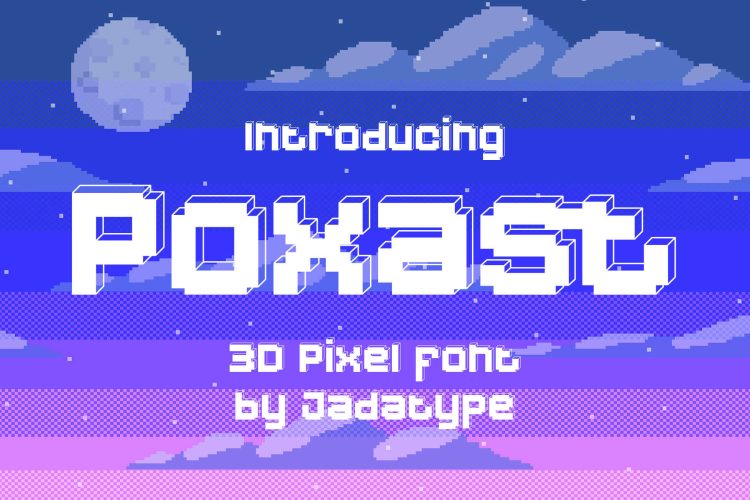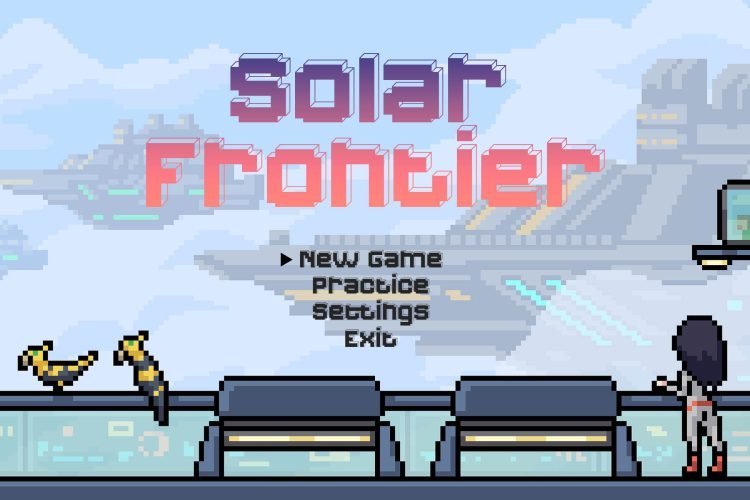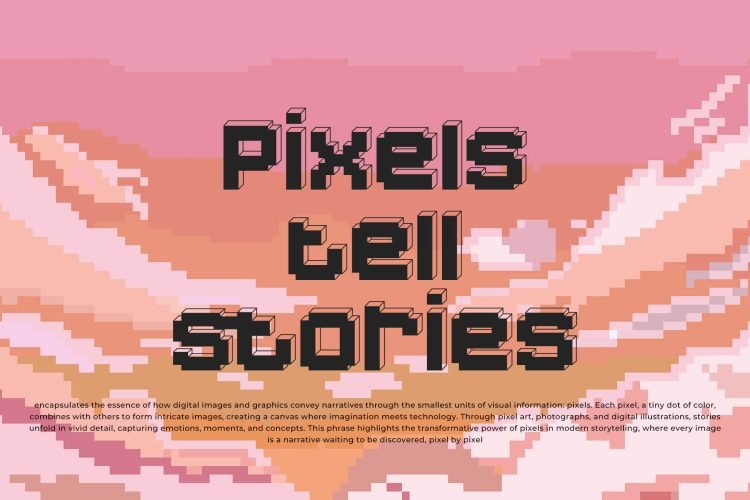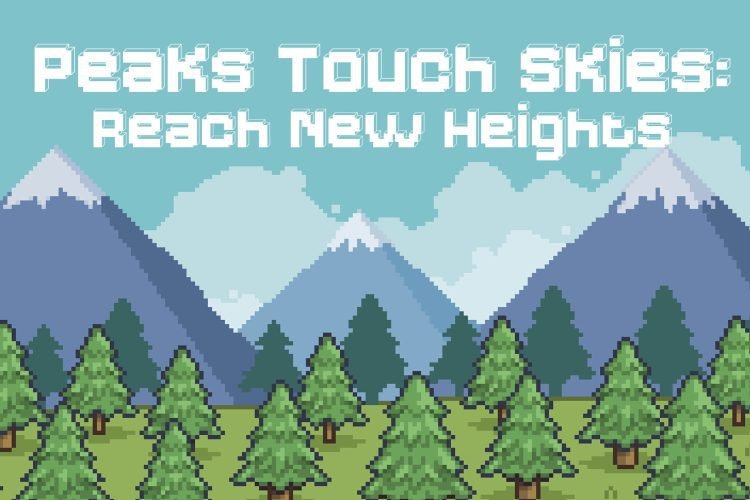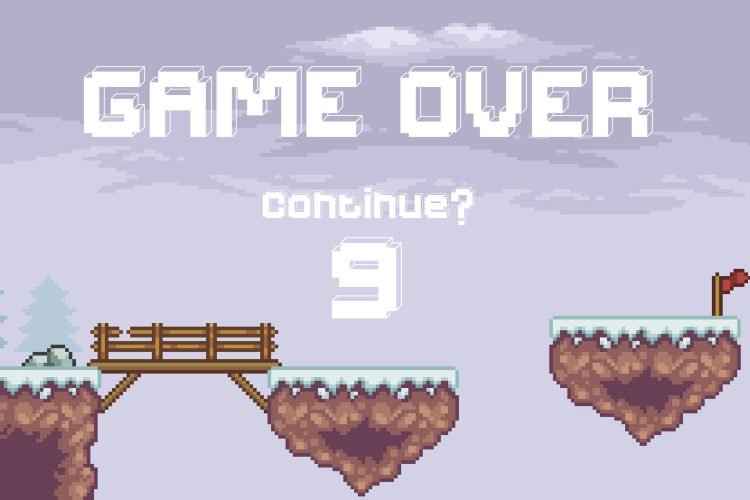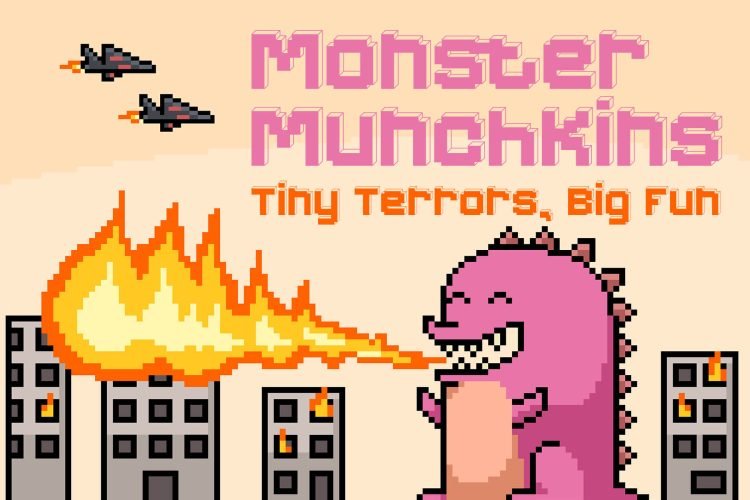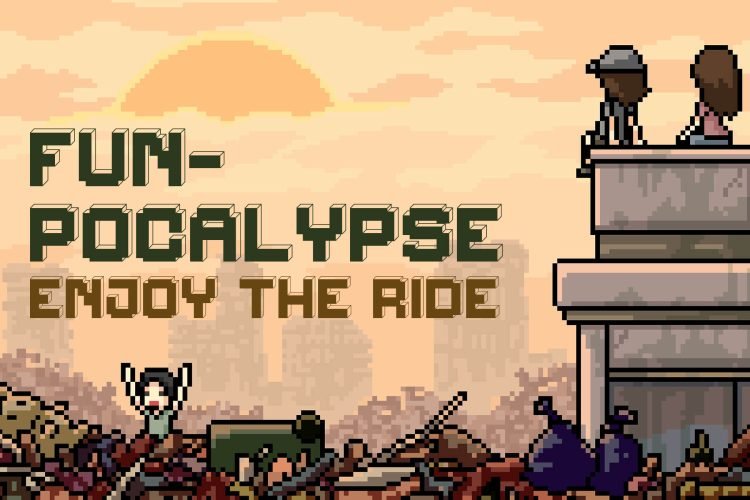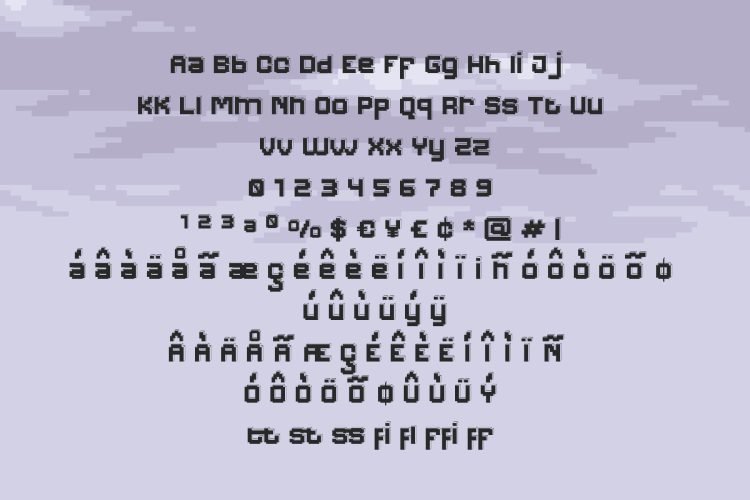
Poxast
Poxast is a Display Font that has 3D Pixel style. Suitable for Products, Games, Branding, social media, logotype and so on. contains standard English letters, numbers, punctuation, and several accents that support multilingualism.
Poxast – 3D Pixel Font